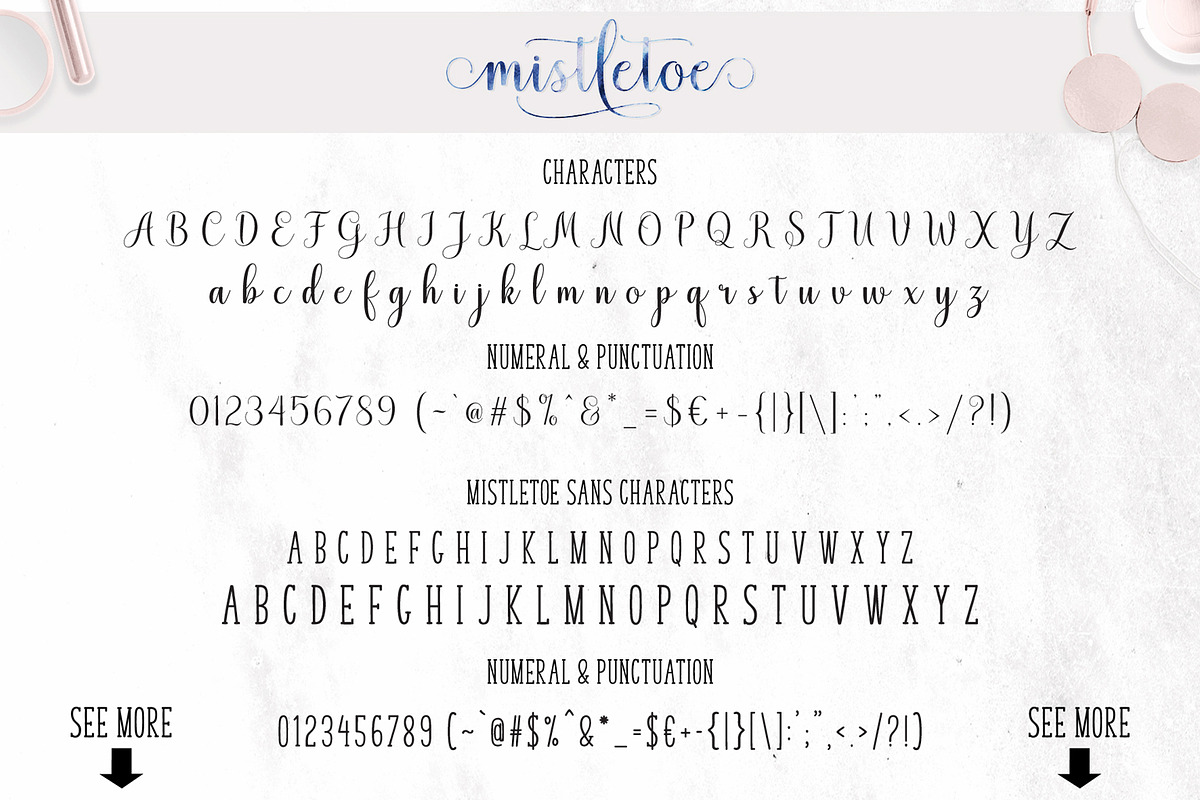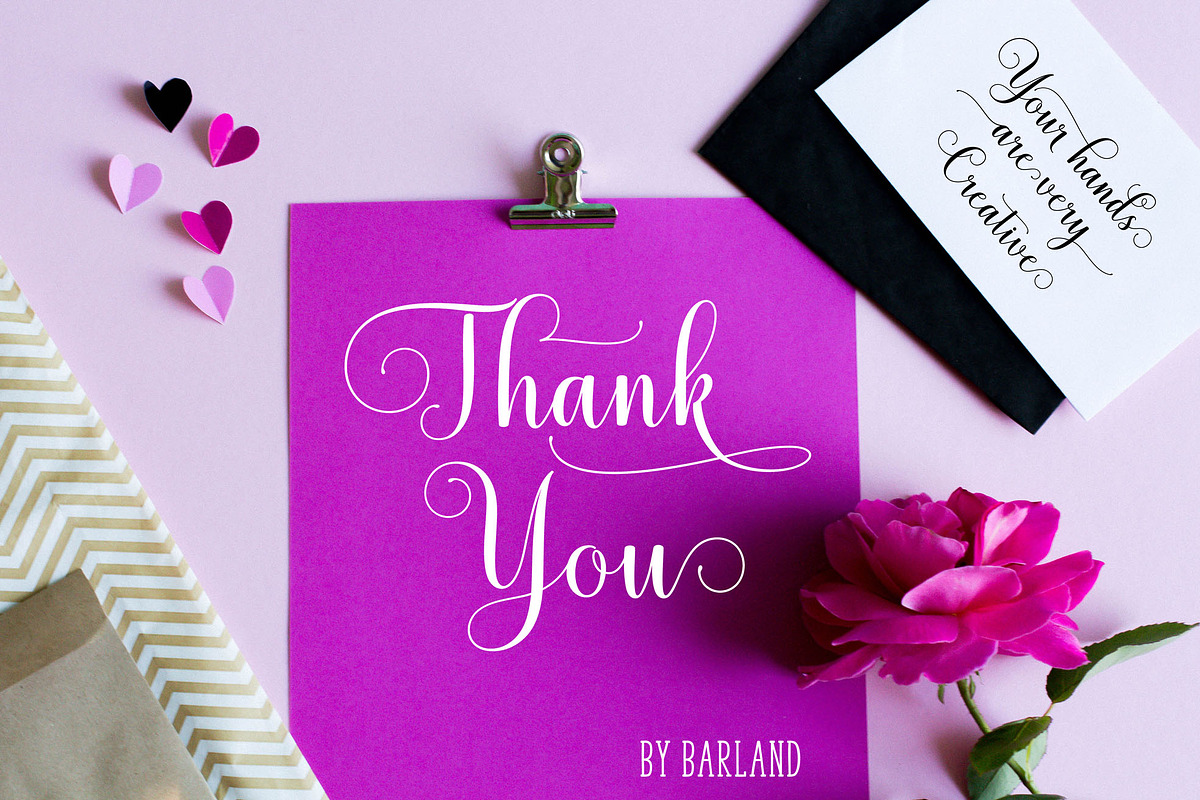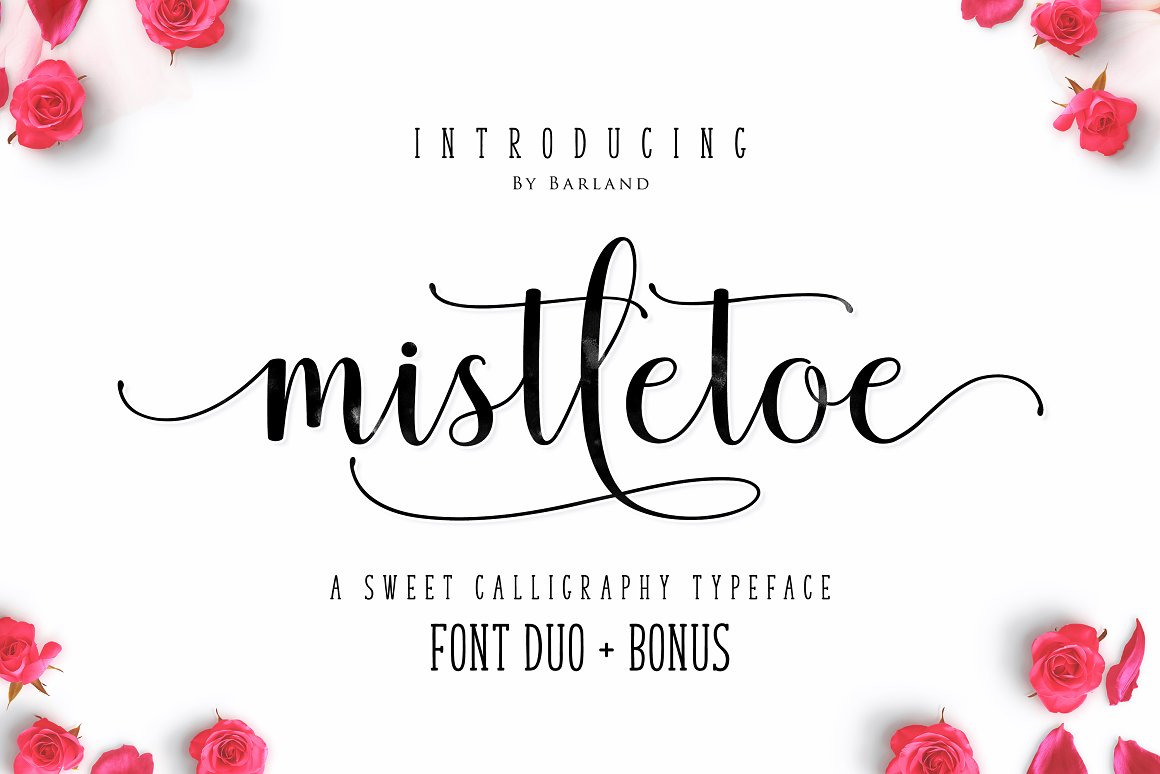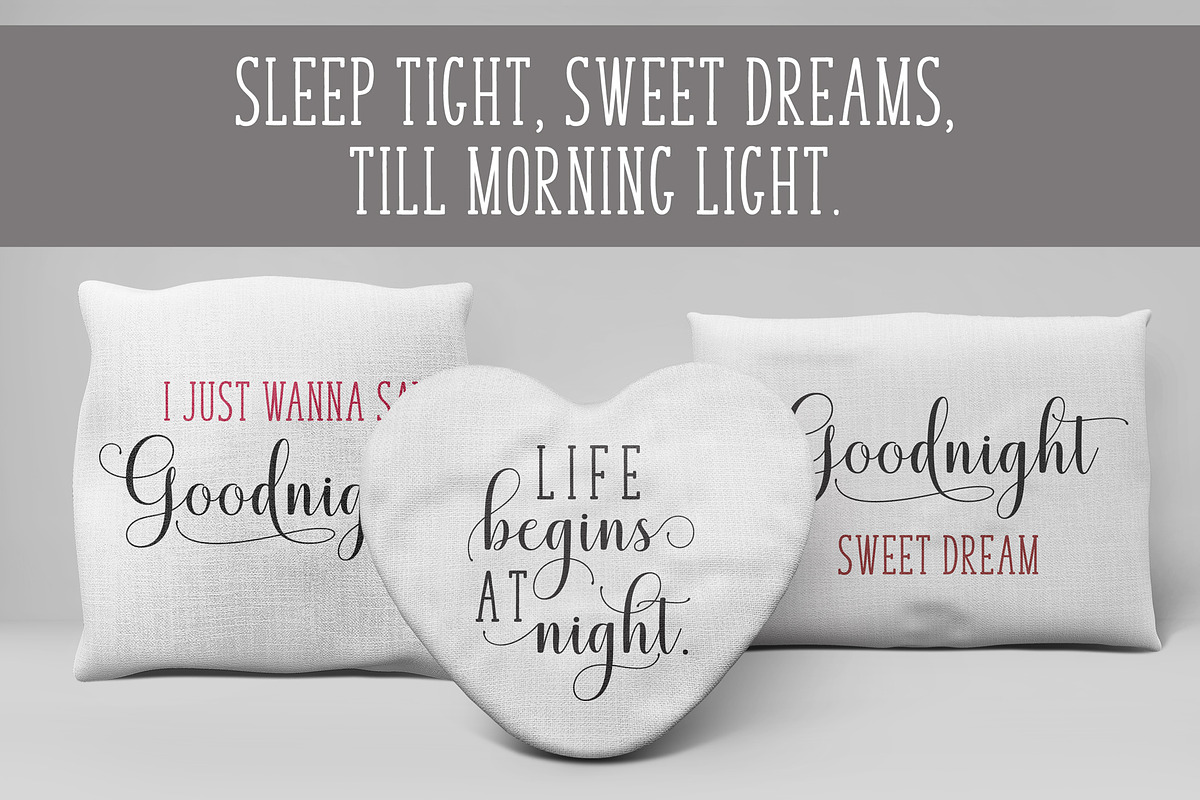
Mistletoe Font Duo, Hope this fun! Introduce my new font Mistletoe Font Duo is a unique blend of classic and modern font. imperfect style ups and downs, like a dance letters, smooth, clean and simple. Mistletoe Font Duo perfect for wedding, event, invitation, escort card, table number, header menus, display, logos, slider blog, custom address, stamps, packaging, greeting card, etc.
Mistletoe Font Duo including alternate glyph and beautiful swirl in a font including stylistic sets, Ligatures etc. The Open Type features can be accessed by using Open Type savvy programs such as Adobe Illustrator CS, Adobe Indesign & CorelDraw X6-X7 and Microsoft Word. And this Font has given PUA unicode (specially coded fonts). so that all the alternate characters can easily be accessed in full by a craftsman or designer.
- Stylistic Set & Ligatures
- Script 952 Glyphs
- Sans 231 Glyphs
- Latin Pro Support Character